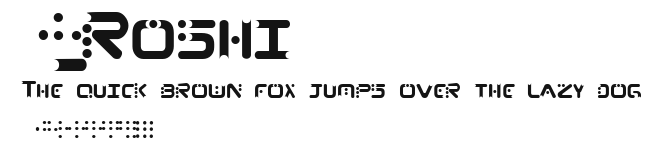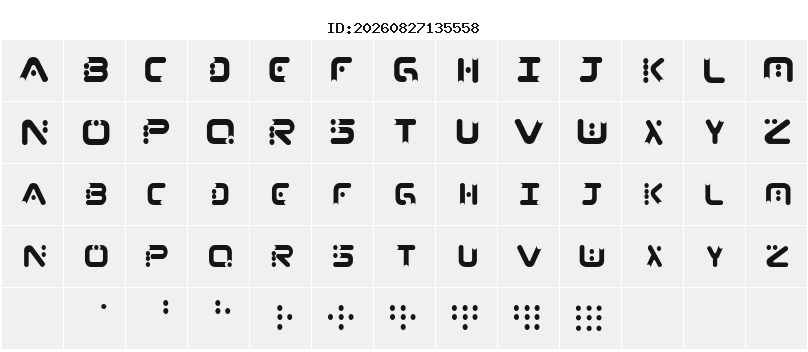
• Font Name: 13_Roshi
• Designer: Zane Townsend
About 13_Roshi.ttf
13_Roshi.ttf is a modern, elegant sans-serif font designed for ultimate readability and visual harmony. Perfect for branding, headlines, web design, and print materials.